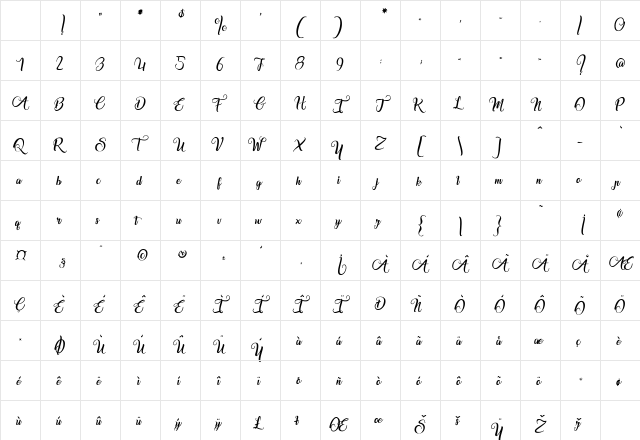
Complete Marchand de Venise Regular glyph index. Displaying only characters natively supported by Marchand de Venise Regular font.
Marchand de Venise flows with the natural rhythm of handwritten lettering, making it ideal for designs that call for warmth and personal expression.
Font Pairing: Combine Marchand de Venise with a simple geometric sans for maximum contrast - the tension between flowing curves and clean structure is a classic typographic pairing.
Pro Tip: Use Marchand de Venise for short runs of text - names, titles, or taglines. Extended body copy in script faces tires the eye quickly.